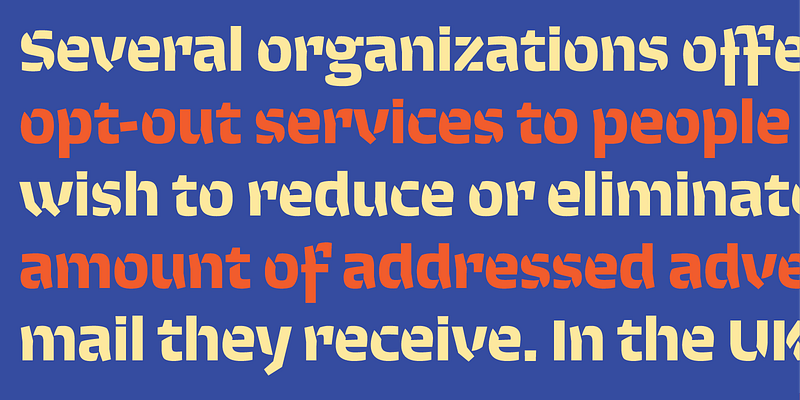
Saffran
Saffran is a stencil sans with squarish letterforms. Its basic square structure allows to maximize the inner space of the letters. Stencil cuts were introduced in order to lighten junctures.